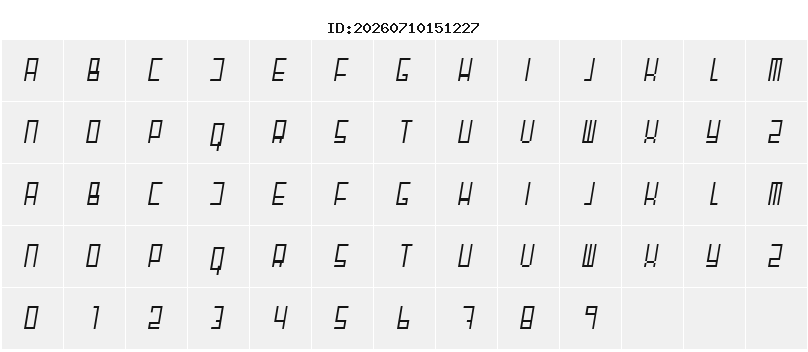
Fair N Square Preview
• Font Name: Fair N Square
• Font Style: Condensed Regular Italic
• Designer: David Kerkhoff
• Manufacturer: David Kerkhoff
About Fair N Square.ttf
Fair N Square.ttf is a modern, elegant sans-serif font designed for ultimate readability and visual harmony. Perfect for branding, headlines, web design, and print materials.